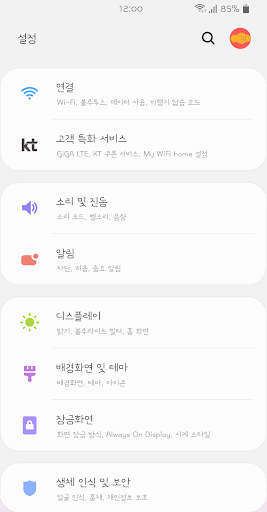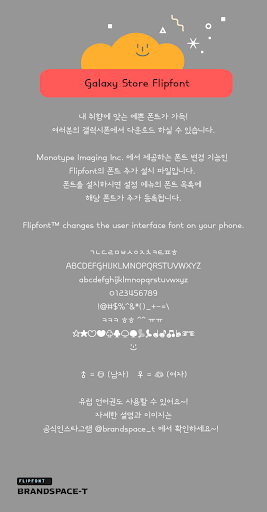
BSTCloudSans
This typeface contains trendyness through its unique curves and geometric shapes. The location and space of the temple are cool and you can feel the clouds floating in the clear sky. It is BSTCloudSans, "Soon, My, My Own Brand," which has a good standard despite its unique sense of space.
+Hidden special character ♨ with a pretty smile!
+♂ (man) ♀ (woman) There is!